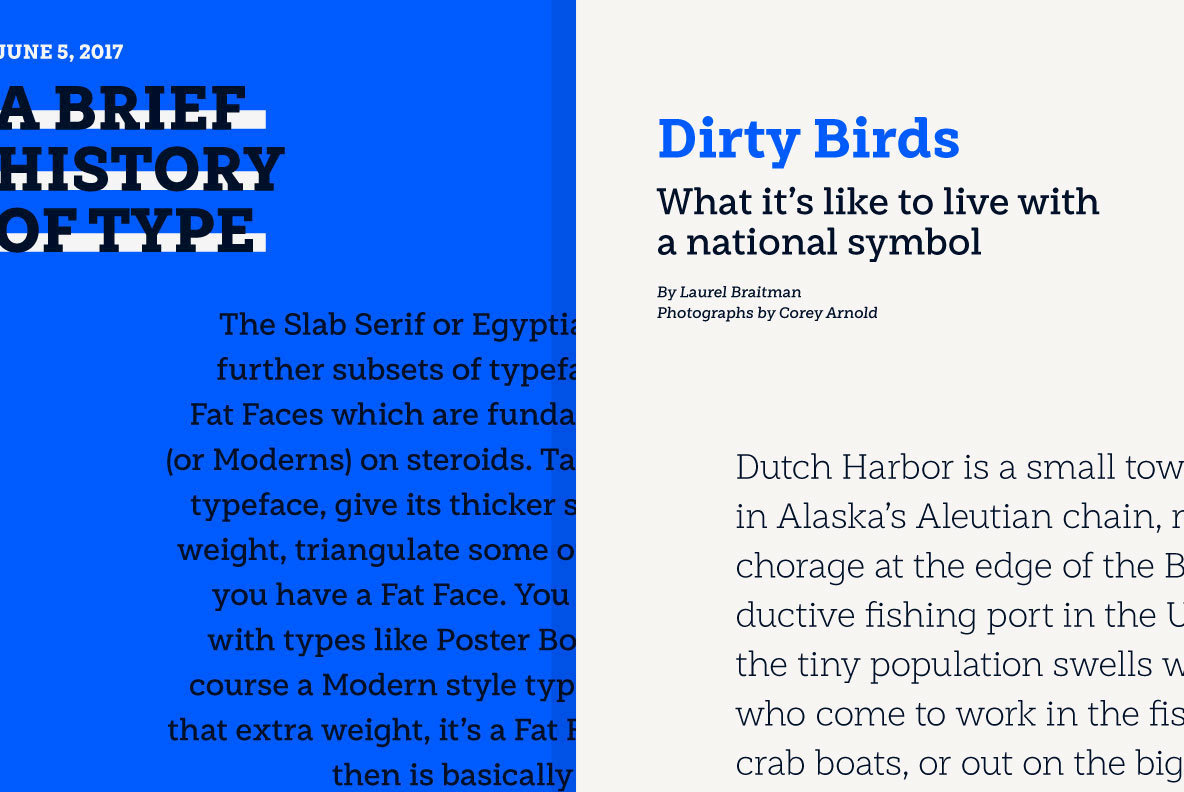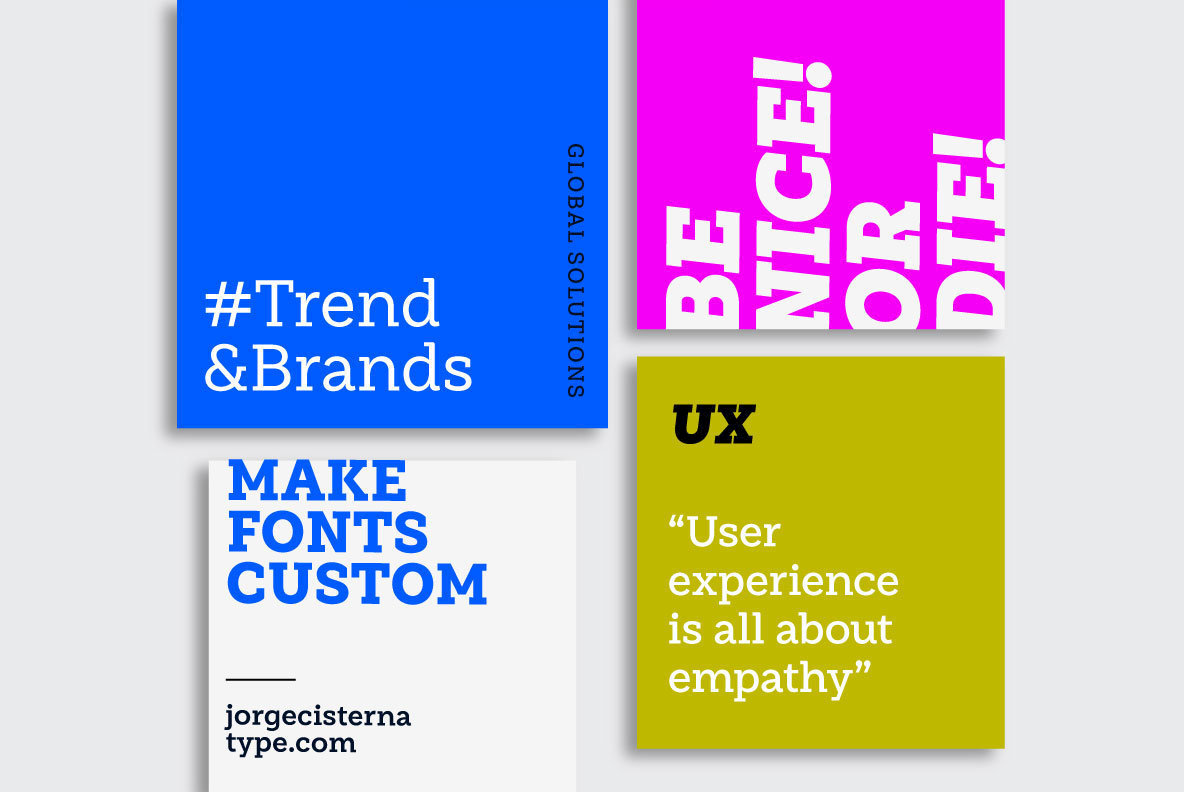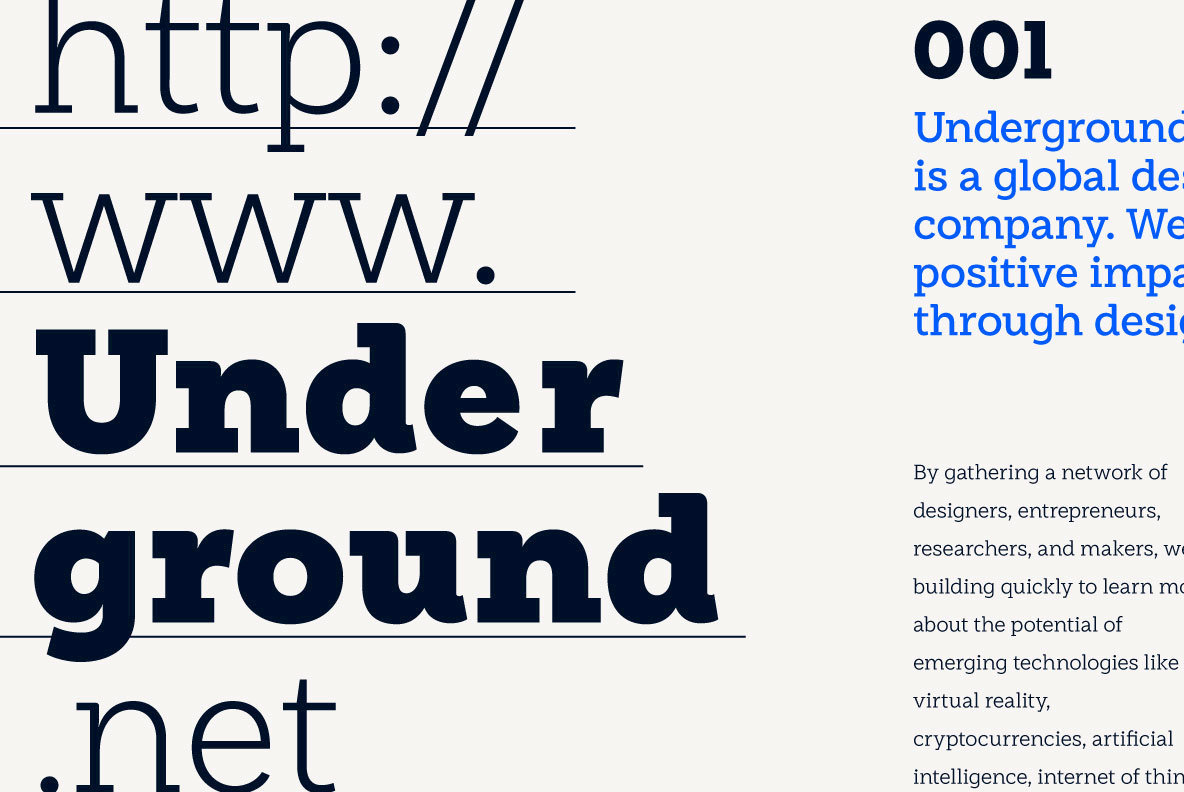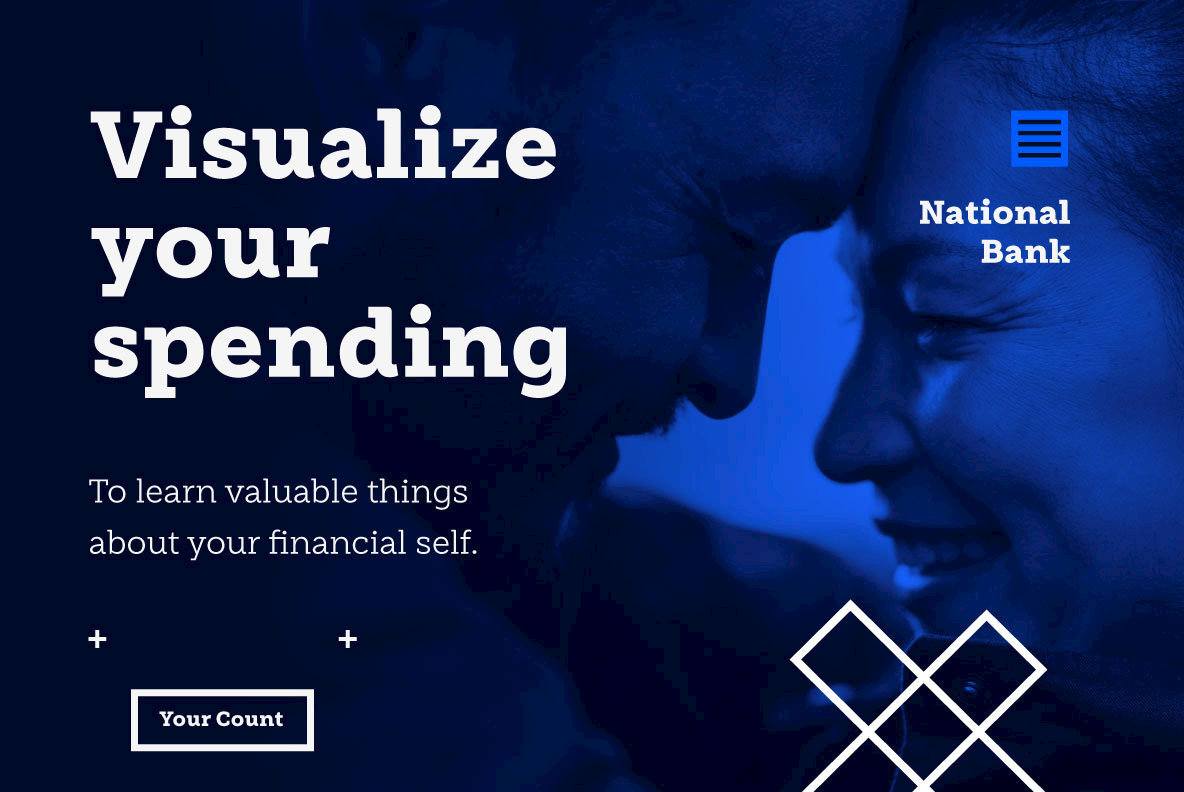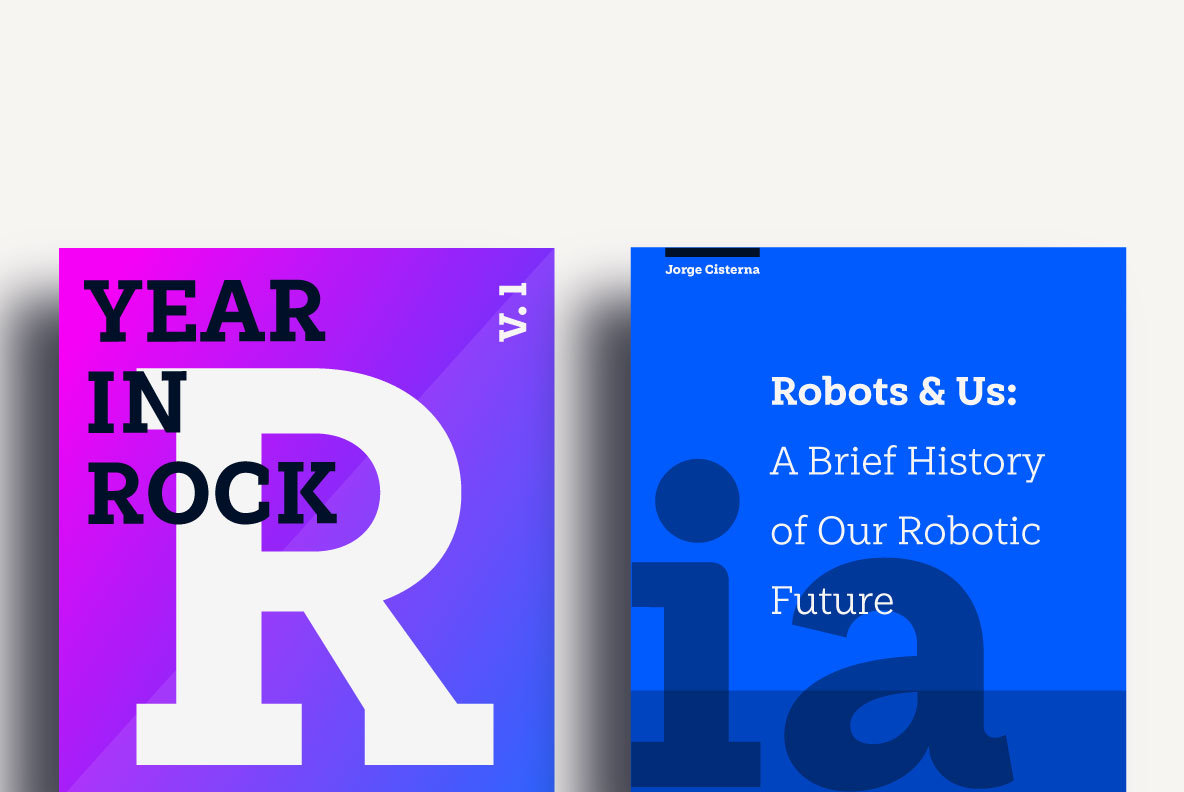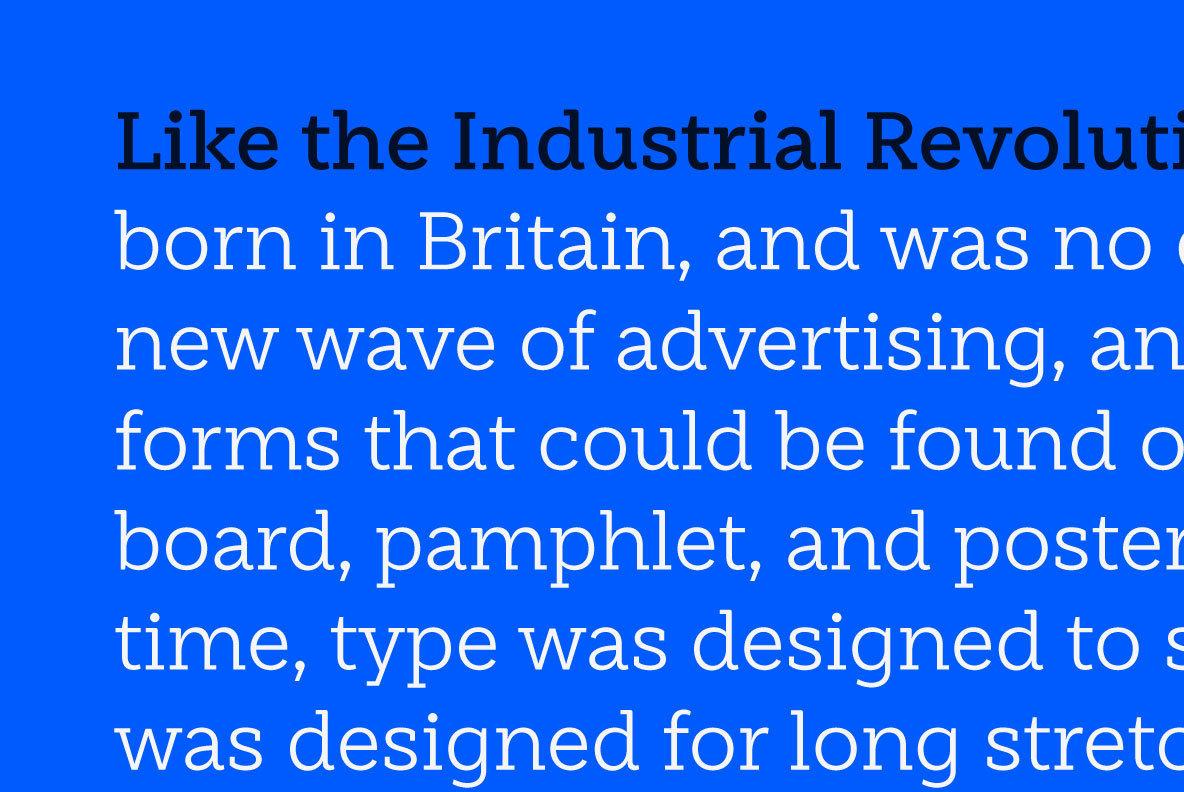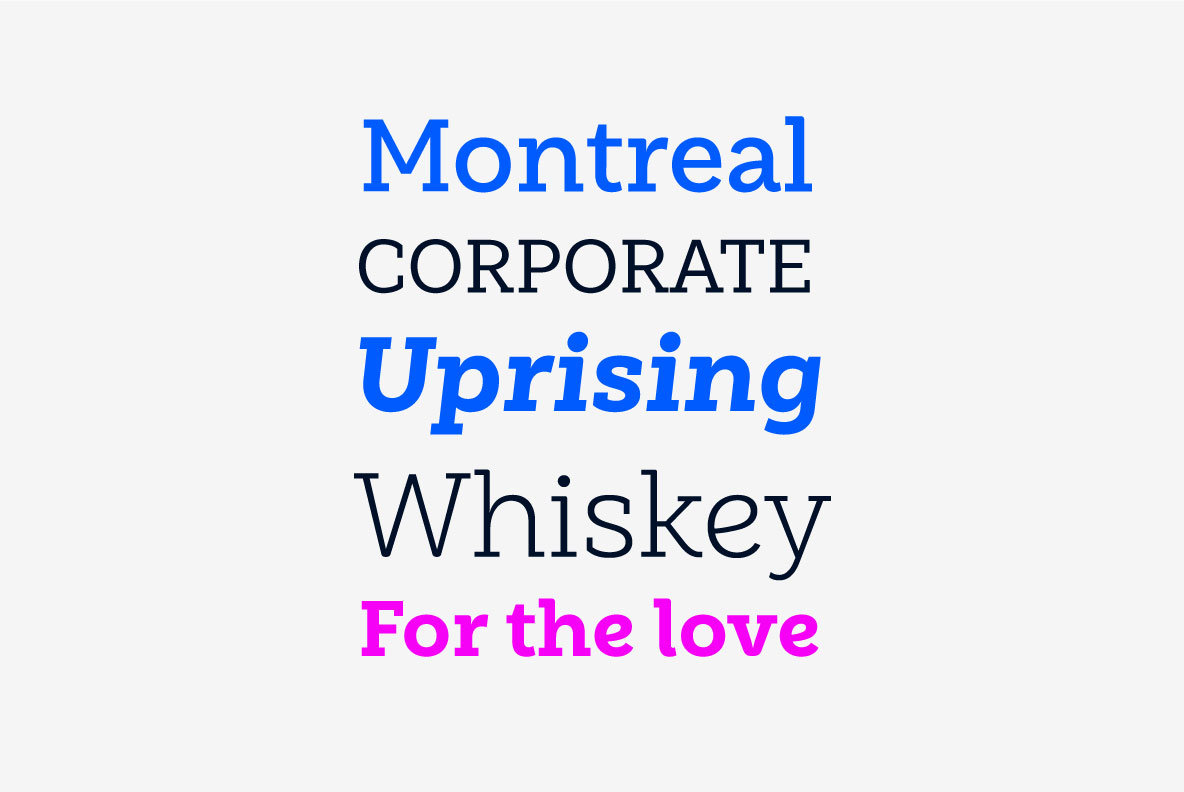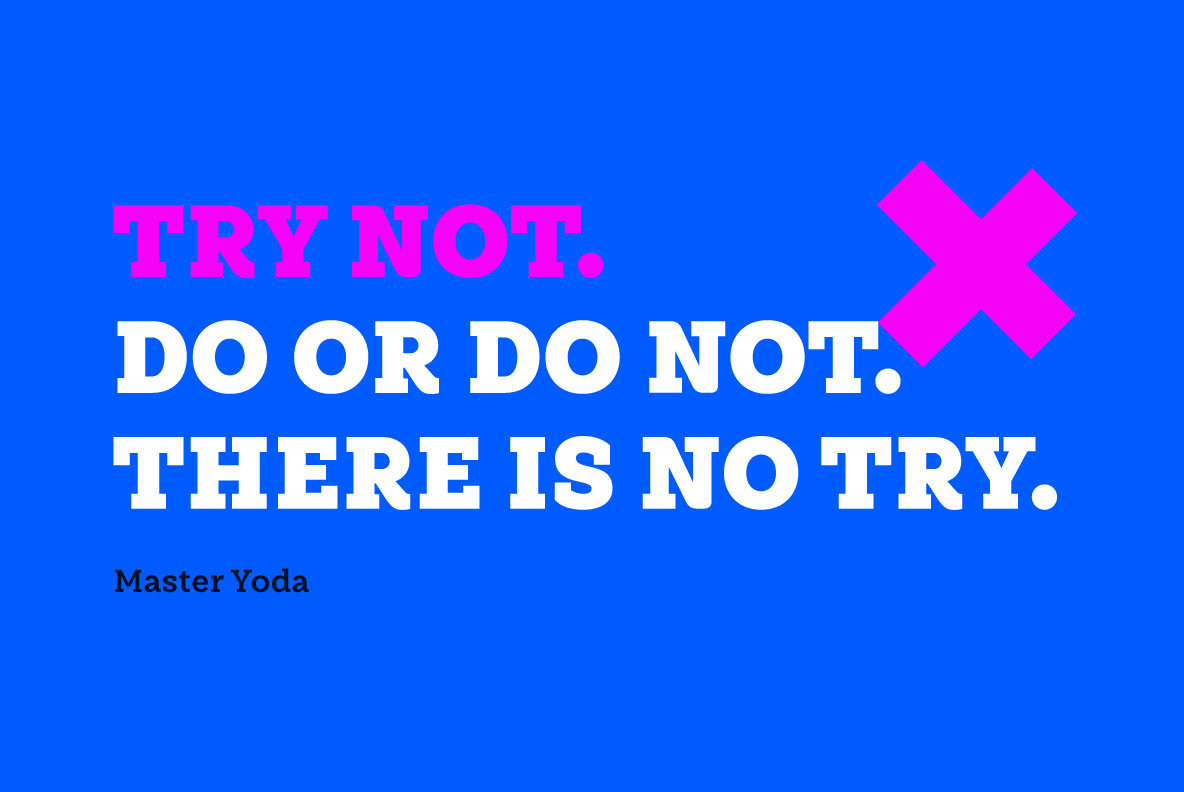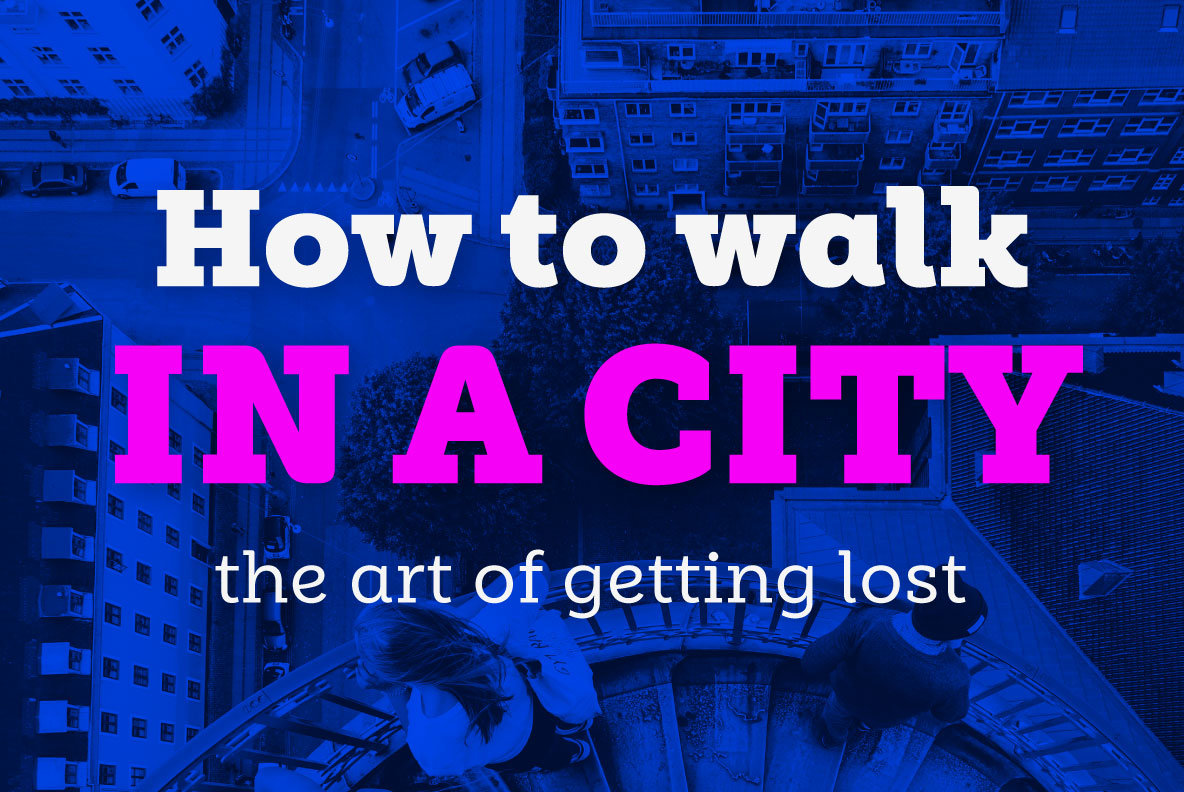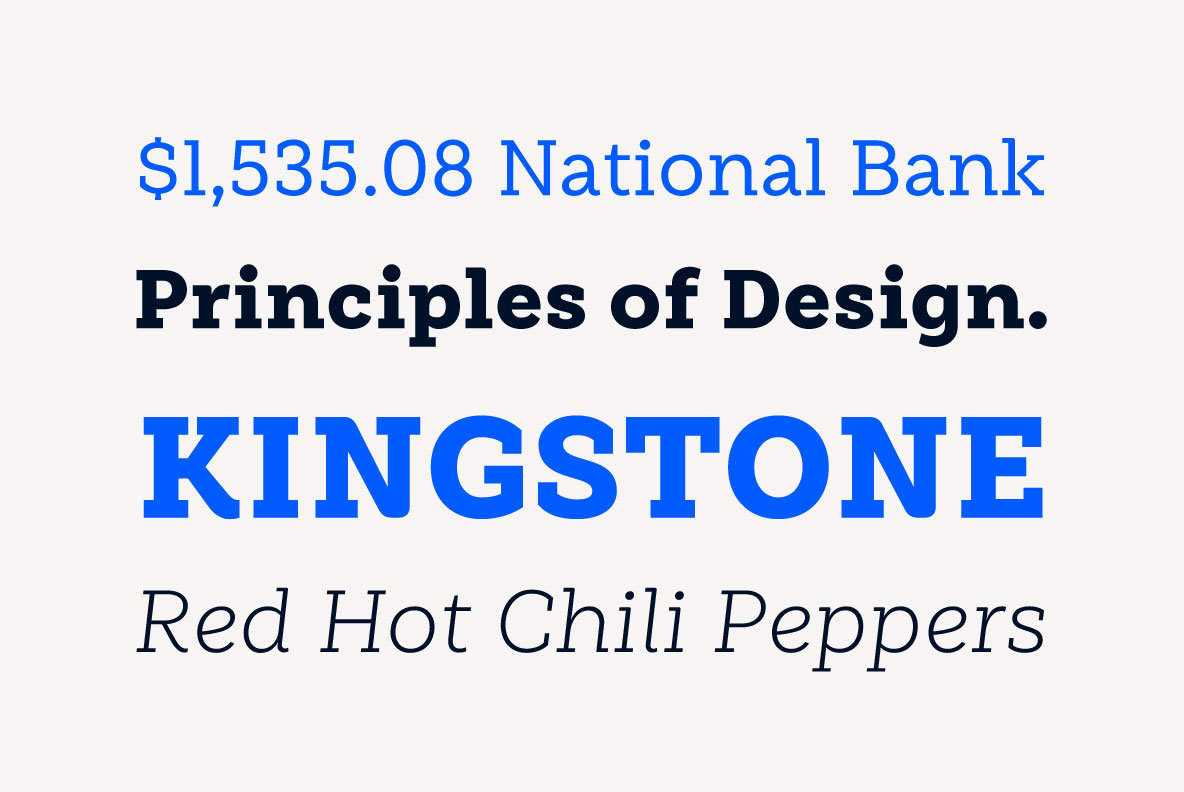
Weekly Font
Weekly comes in both light and heavy weights. The heavier ones bear resemblance to Egyptienne slab serif typefaces with strong personality. These variants are ideal for use in posters and big, powerful headings.